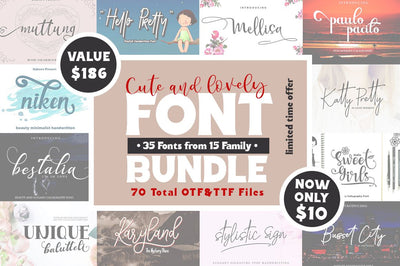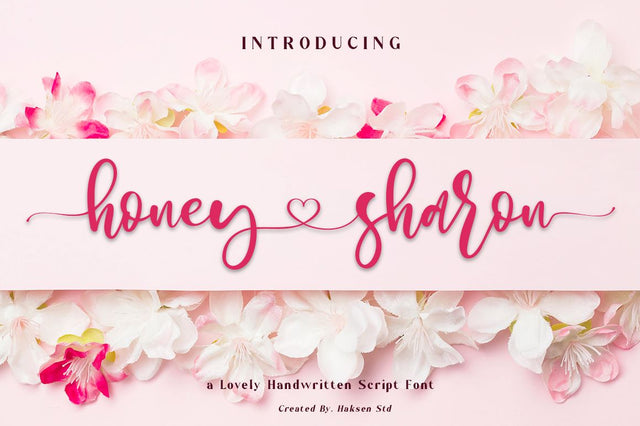
35 Fonts from 15 Family in Cute and Lovely Font Bundle
Comes with 35 fonts from 15 typeface, contain with many various beauty handwritten script, display comic and more.
This fonts is ideal for branding and decorate your any project. This fonts are perfect for wedding invitation or your blog. Also with their help, you can create a logo or beautiful frame for your home.